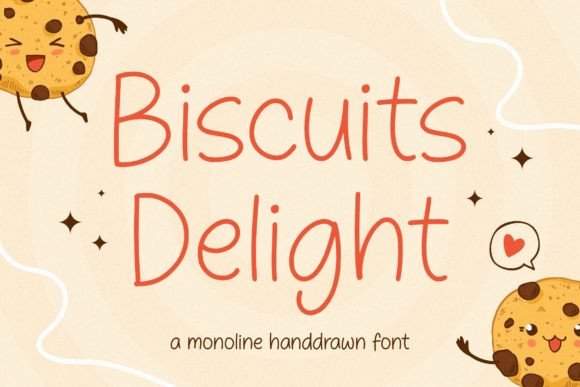
Introducing the Biscuits Delight Font: A Culinary Delight for Your Design Endeavors!
In a world of monotonous fonts, Biscuits Delight emerges as a refreshing burst of flavor, ready to tantalize your creative taste buds. This monoline handdrawn font is not just a font; it's an experience, an indulgence that will leave you craving for more.
Picture this: the aroma of freshly baked biscuits wafting through the air, their golden-brown crusts beckoning you to take a bite. Biscuits Delight captures that same essence, that same irresistible charm, translating it into a visual masterpiece that will elevate your designs to new heights.
With its natural, organic feel, Biscuits Delight exudes a sense of authenticity and warmth. Its unique character dances across the page, like a playful melody that captivates the senses. Whether you're crafting logos, branding, invitations, or any other design project, Biscuits Delight promises to add a personal touch, a sprinkle of delight that will make your creations truly unforgettable.
But Biscuits Delight is more than just a pretty face. It's a font of remarkable versatility, ready to adapt to your every whim. Its graceful curves and elegant lines lend themselves effortlessly to a wide range of design styles, from the classic and timeless to the modern and edgy. Whether you're designing for print or digital, Biscuits Delight will rise to the occasion, delivering stunning results that will leave your audience craving for more.
So, why settle for ordinary fonts when you can savor the delectable flavor of Biscuits Delight? Let your designs bask in its warmth, let your creativity dance to its rhythm. Indulge in the Biscuits Delight experience today and unlock a world of design possibilities that will leave your audience hungry for more.